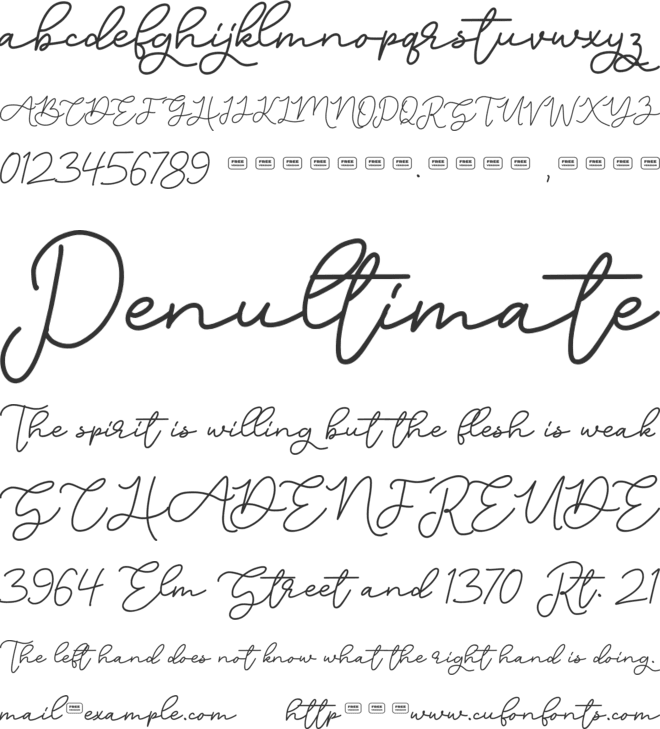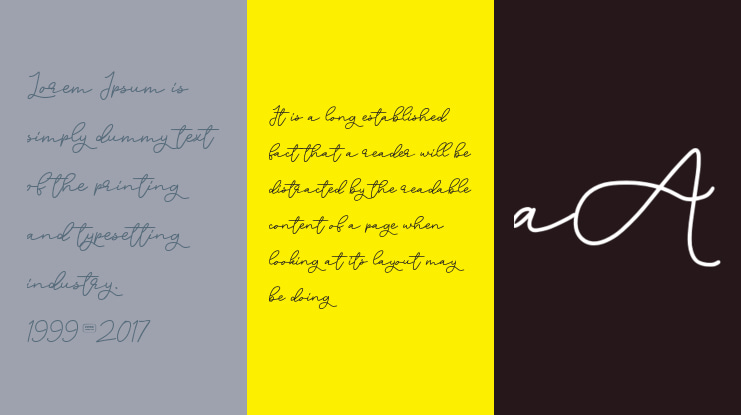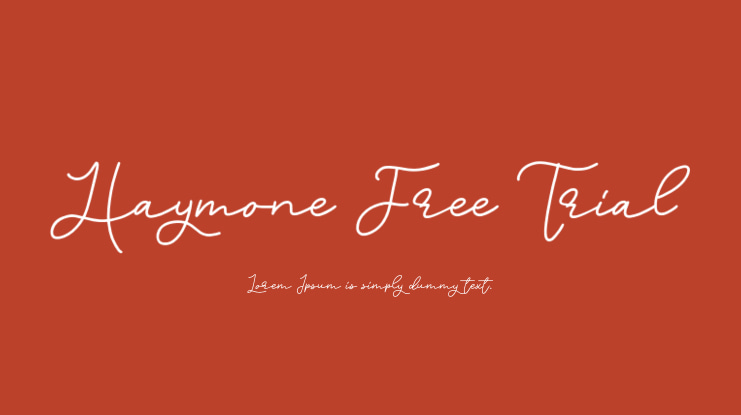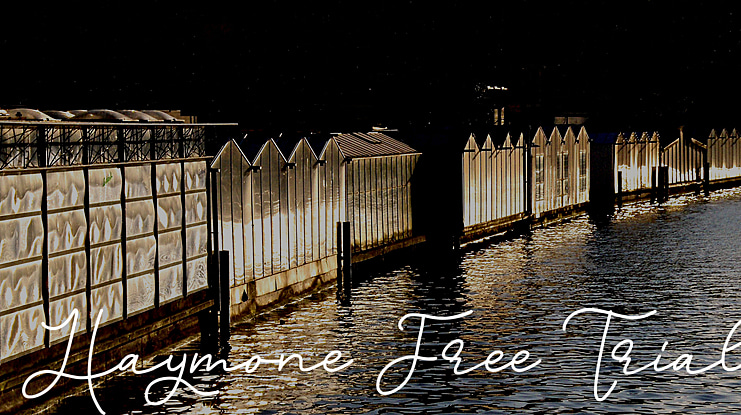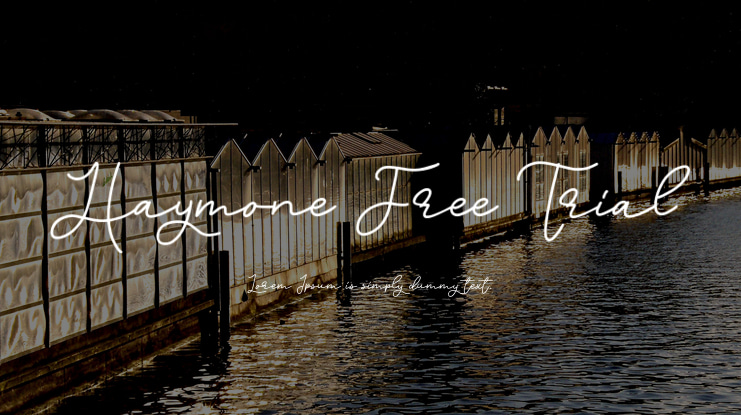
Haymone Free Trial Font
Haymone has an authentic signature style that will take your projects to another level.
It’s perfect for logos, products packaging and wedding invitations.